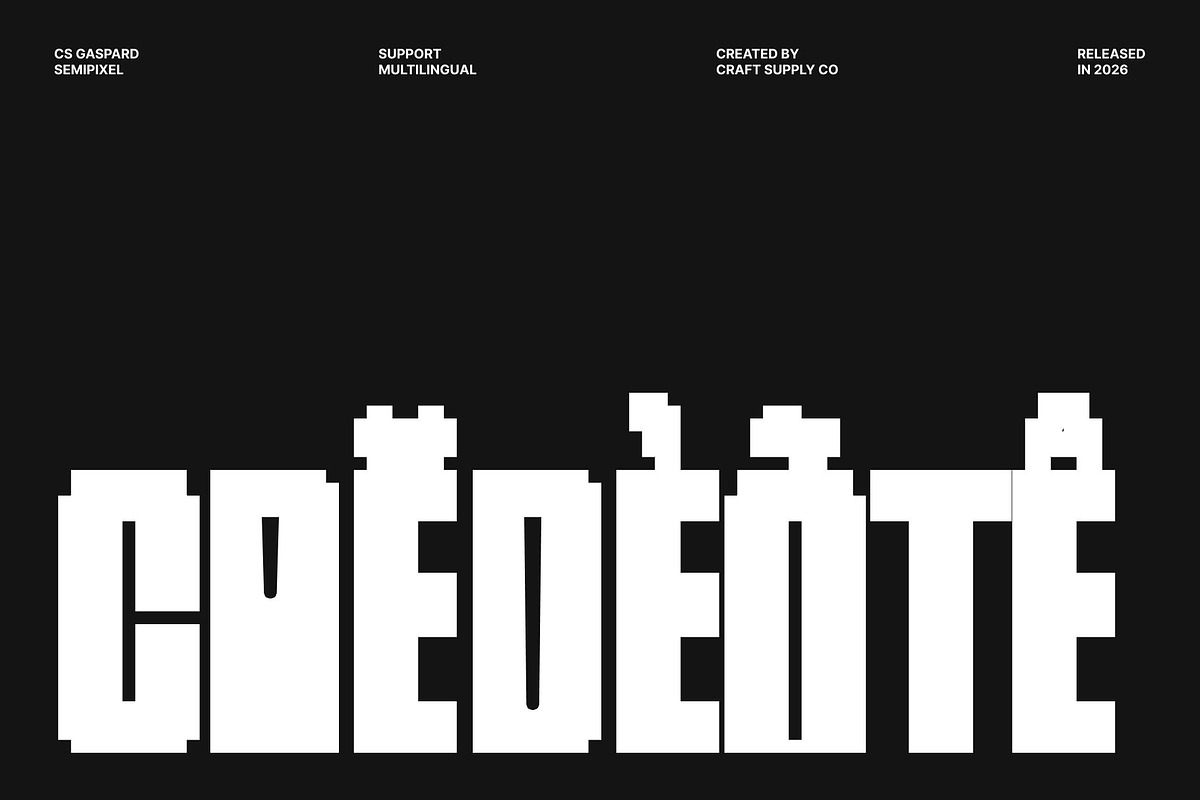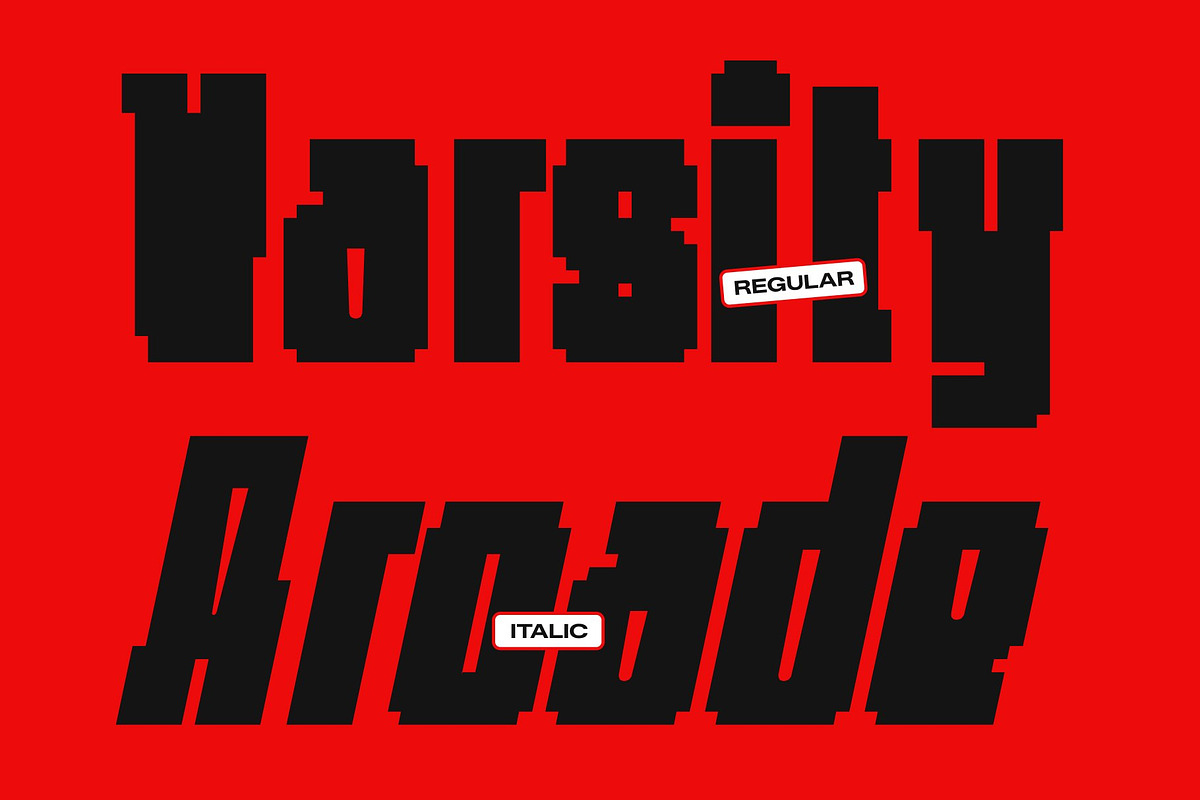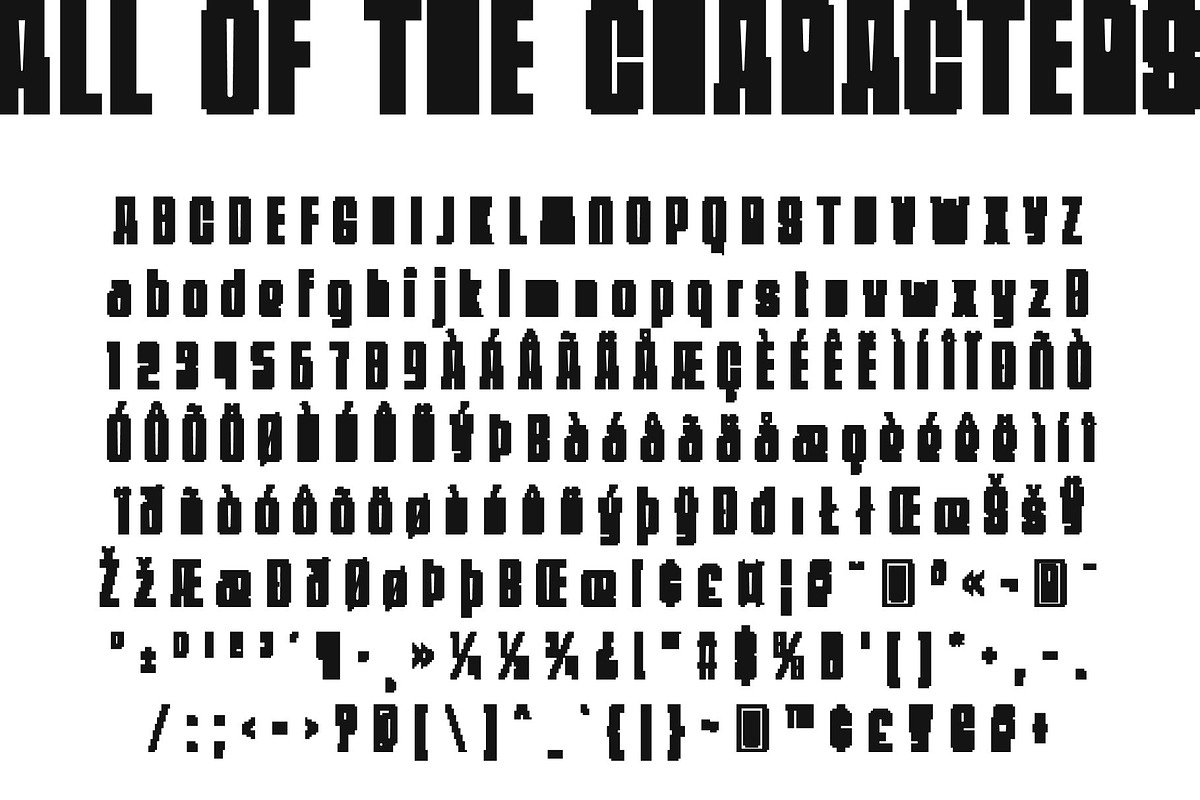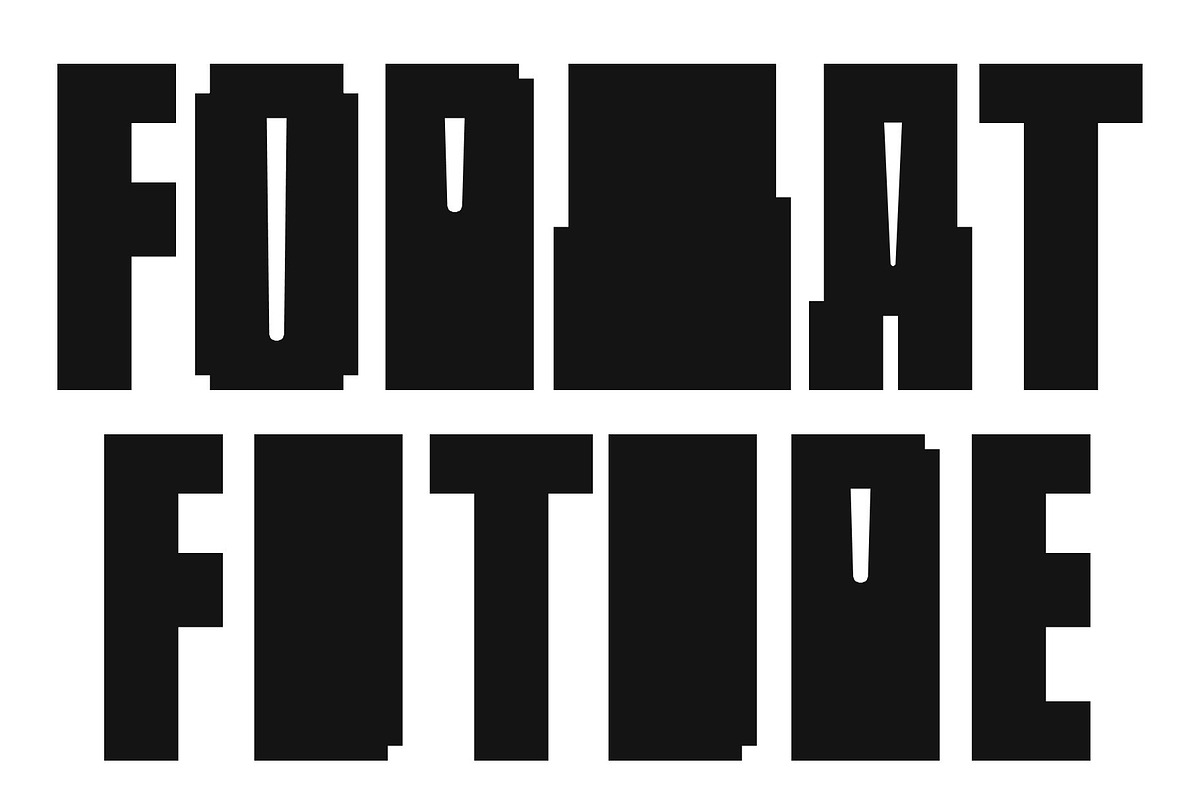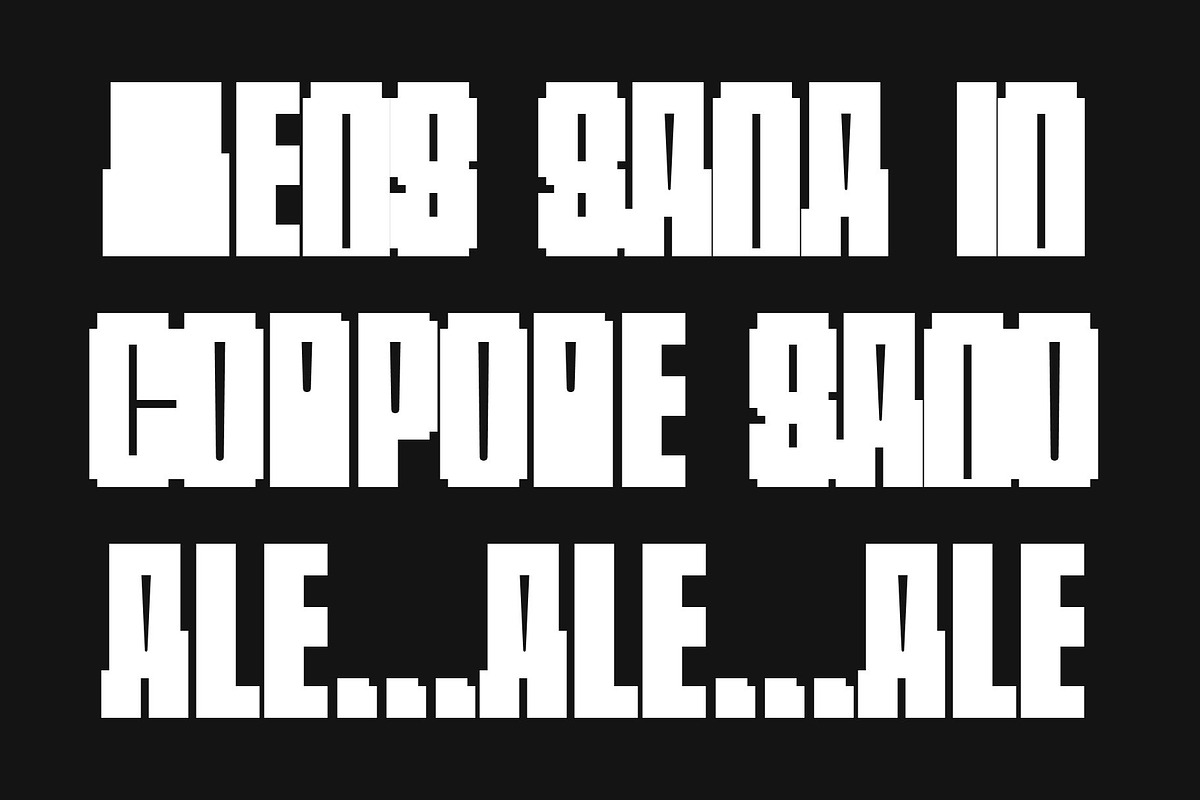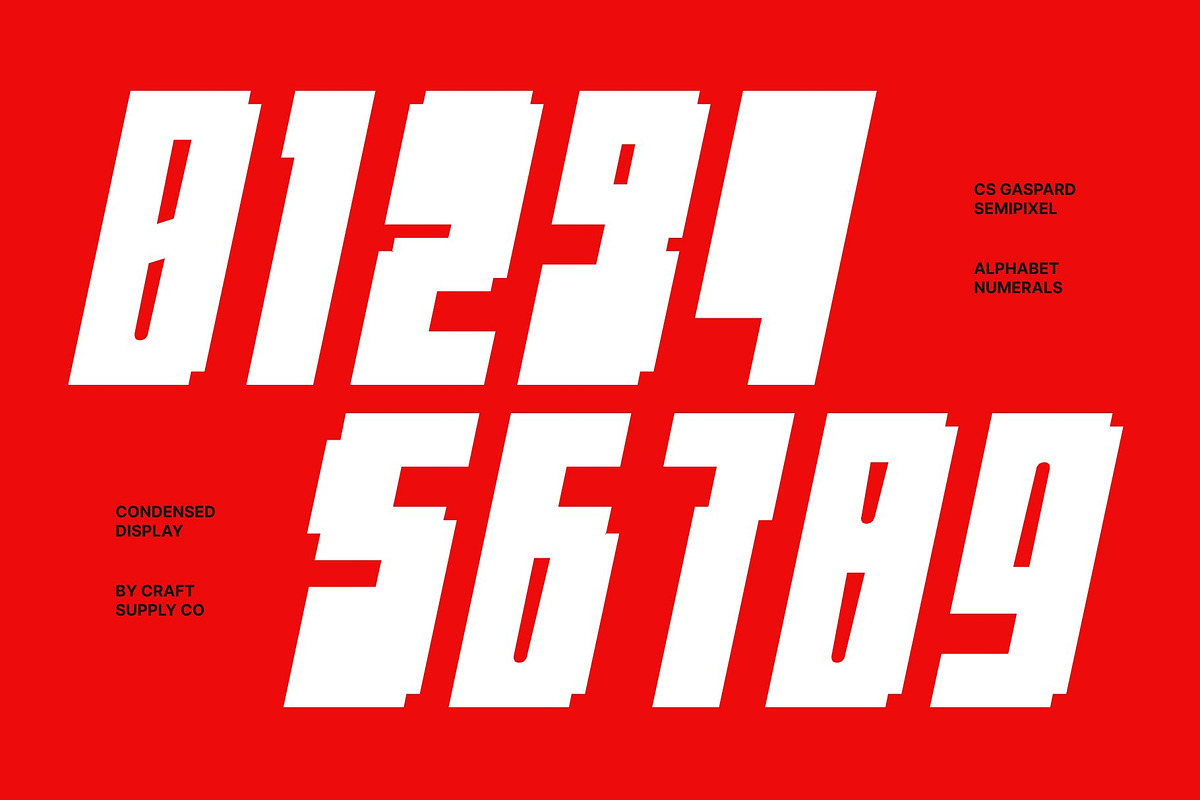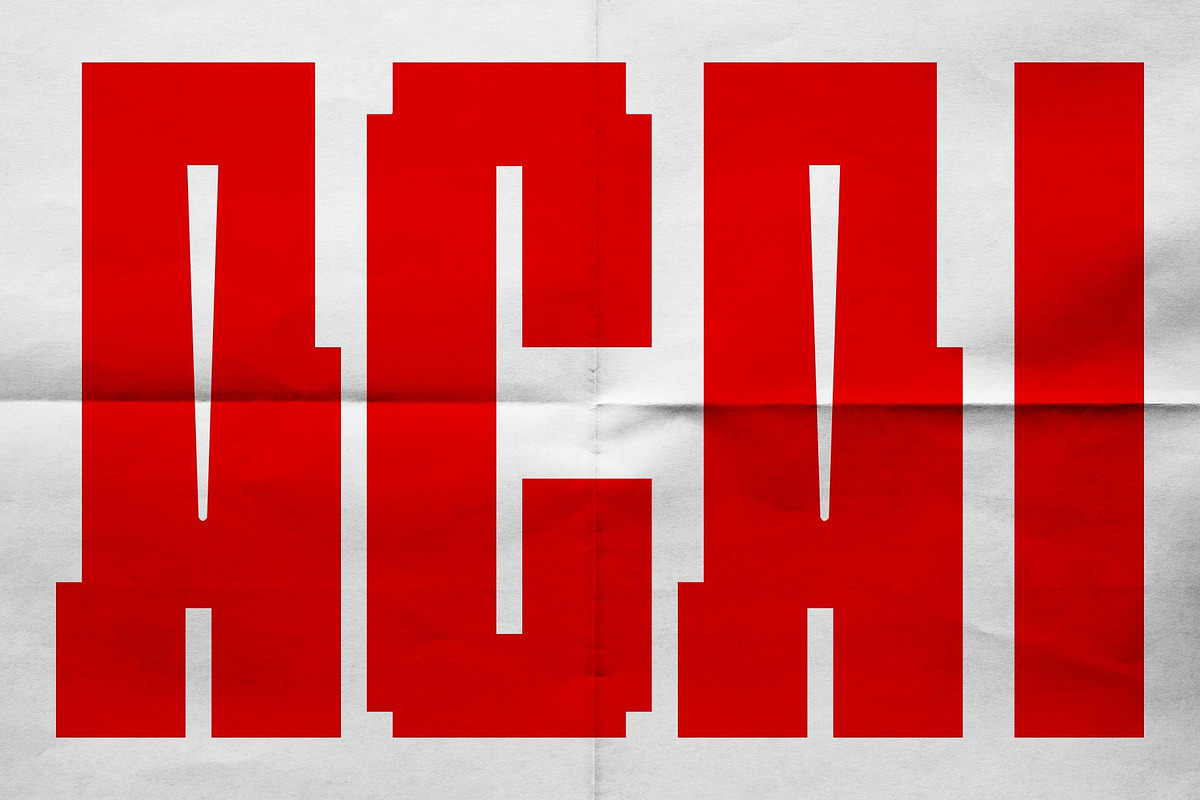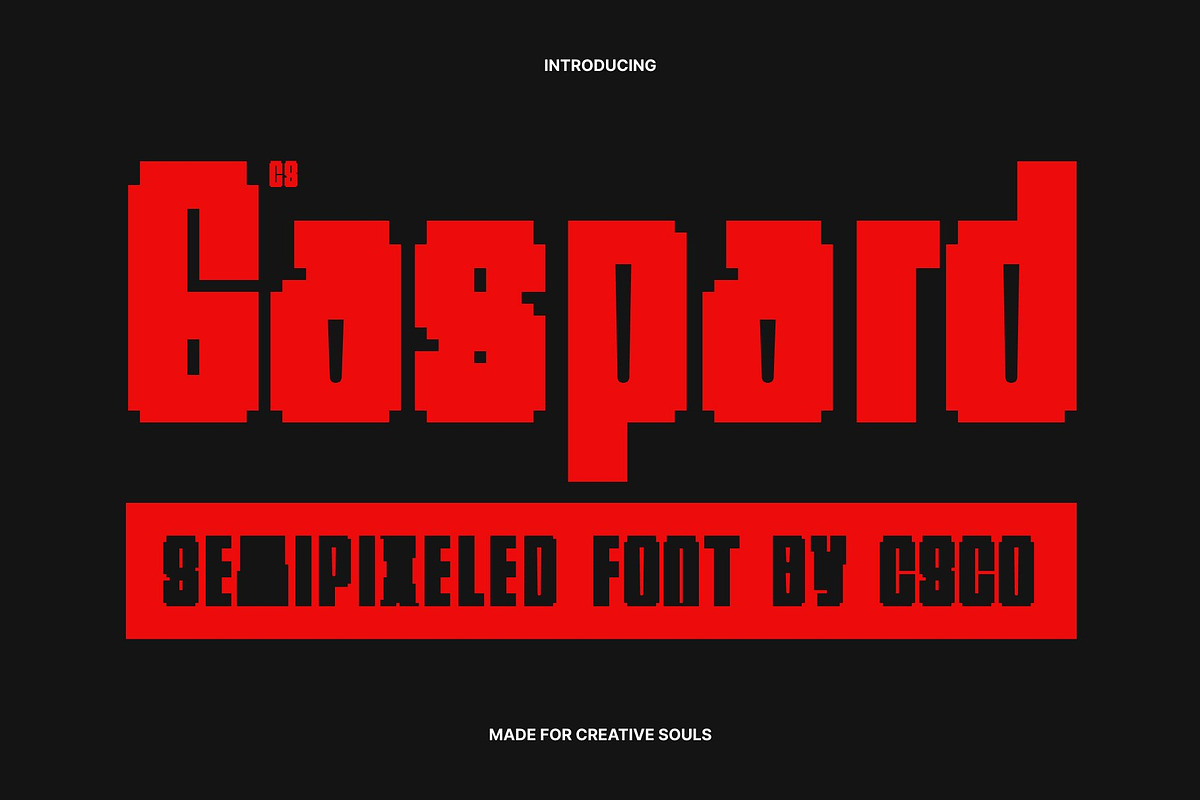
CS Gaspard Semipixel
CS Gaspard Semipixel – Bold Condensed Sans Serif Font: Where Industrial Precision Meets Smooth Digital Energy
Compact Powerful Forms with Modern Urban Character This font is a bold condensed sans serif font designed to deliver maximum visual impact in tight spaces. Its narrow proportions and strong geometric structure create a commanding appearance filled with modern energy, industrial precision, and contemporary style. Every character is crafted to maintain clarity while maximizing presence, making the font perfect for bold headlines and compact visual compositions.
Semipixel Aesthetic with Smooth Pixel Refinement Combining pixel-inspired square forms with modern curves and refined detailing, this font offers a smoother and more sophisticated appearance than traditional rigid pixel fonts. The semipixel construction softens the geometry while preserving its retro-digital identity, creating a sleek balance between futuristic technology and modern readability.
Industrial Futurism with Dynamic Visual Rhythm Blending condensed modern typography with semipixel refinement, this font delivers a typographic identity that feels technological, urban, and visually immersive. Its compact forms and smooth digital styling create a strong rhythmic flow ideal for industrial-inspired and high-energy creative projects.
Perfect for Editorials, Techno Branding, and Apparel This font perfect for urban editorials, editorial layouts, industrial techno visuals, branding, posters, apparel graphics, streaming visuals, and futuristic promotional campaigns. Its bold condensed semipixel forms make it ideal for logos, merchandise, headlines, packaging, and visual identities that seek a strong modern digital appearance.
CS Gaspard Semipixel Regular
CS Gaspard Semipixel Italic